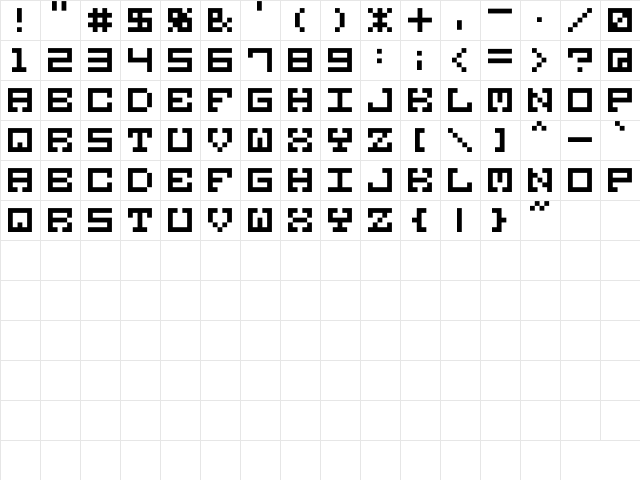
M38_GORILLA Regular Font Preview
M38_GORILLA Regular
Design Context for M38_GORILLA Typeface
M38_GORILLA offers clean, dependable letterforms without strong stylistic allegiance, making it a practical choice for designers who need flexibility.